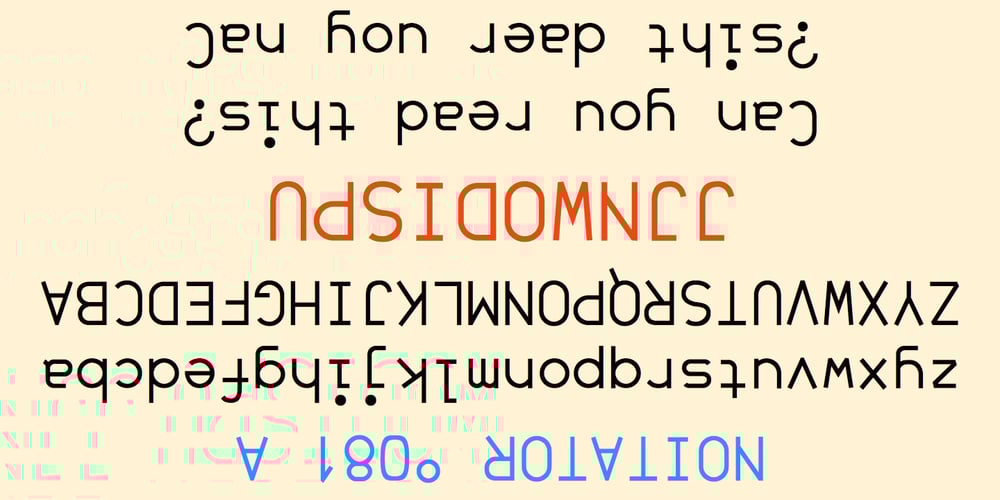
UpsidedownJJ Font Family was designed by Robert Schenk and published by Ingrimayne Type. UpsidedownJJ contains 1 styles and family package options. Have you ever wanted to print text upside down? There is, of course, software that lets you rotate text, but another way is to use an upside-down font like UpsidedownJJ. Notice that to use it to get upside-down printing, you must type in the words backwards. UpsidedownJJ is derived from the font JetJaneMono.